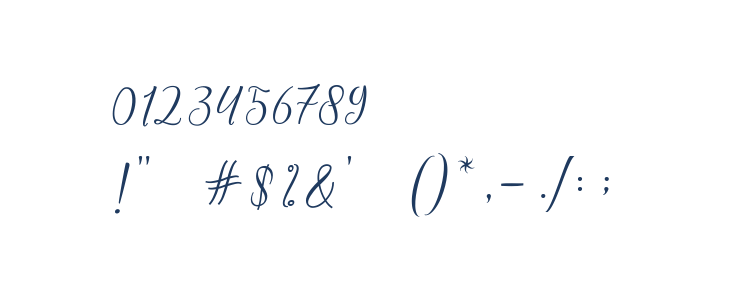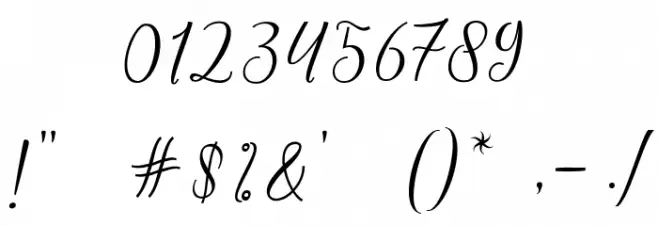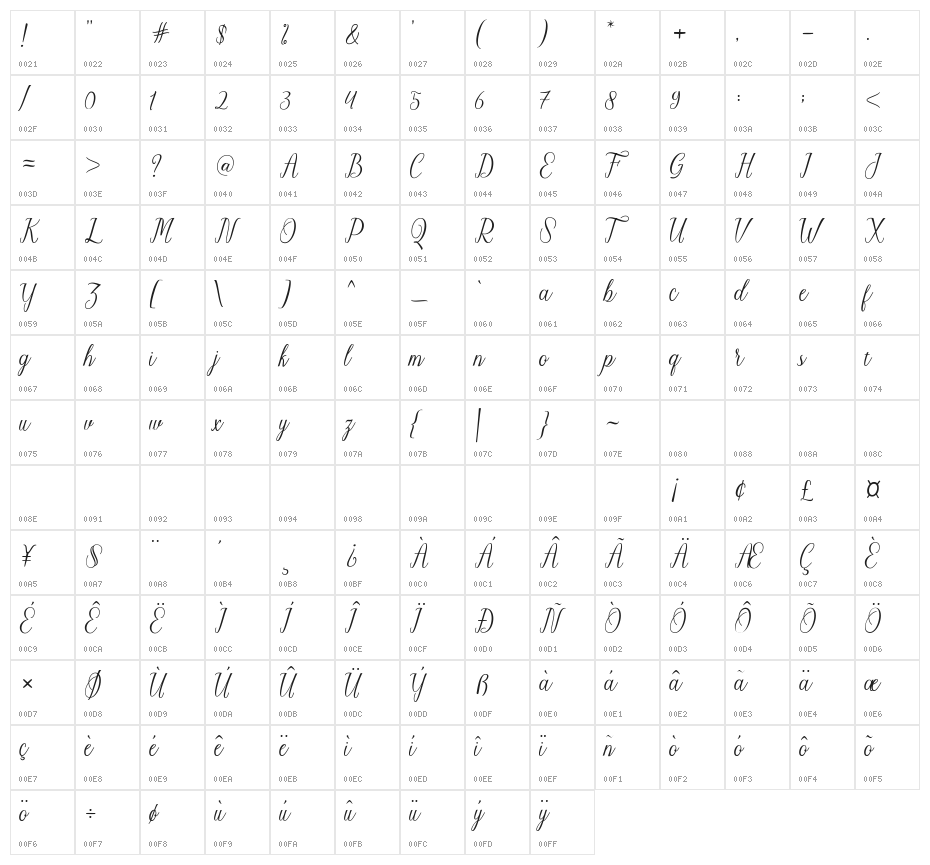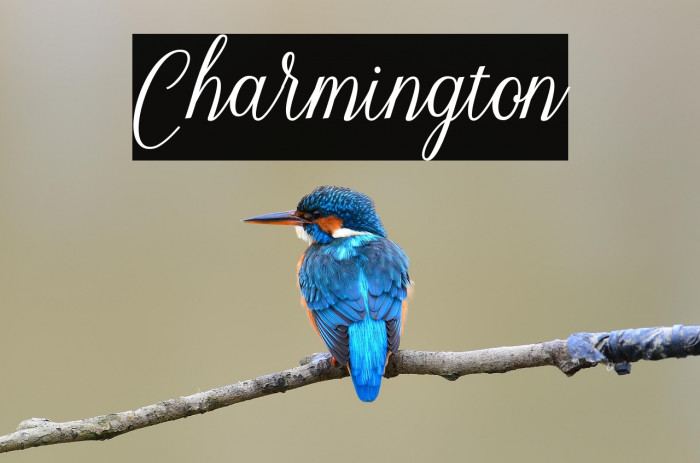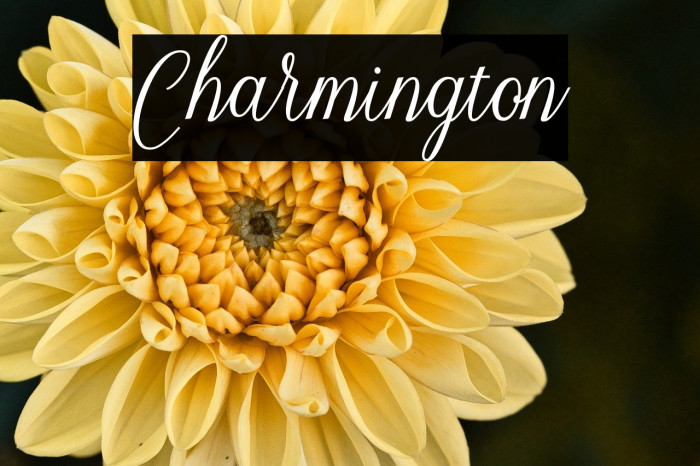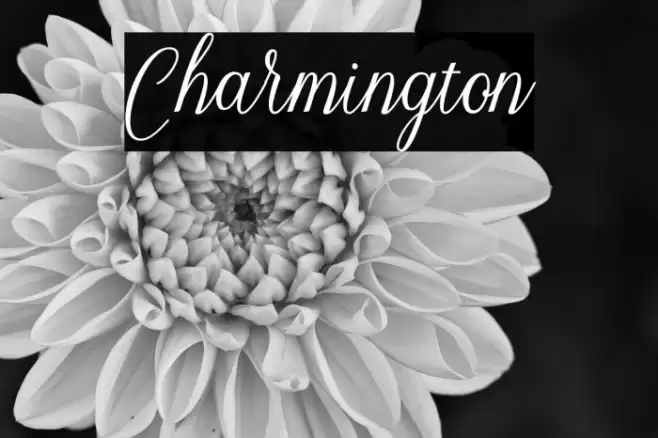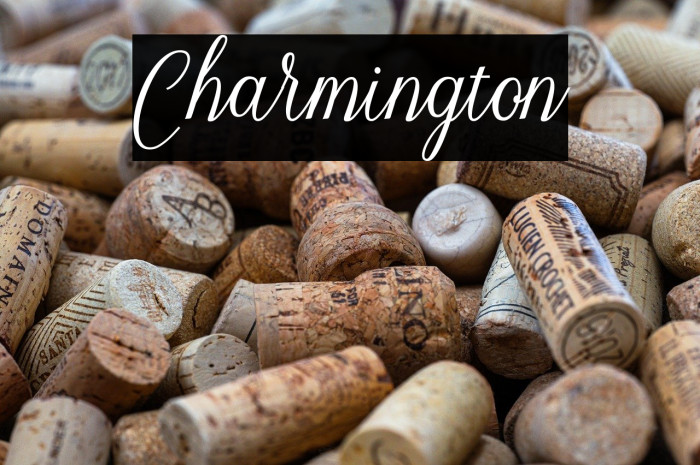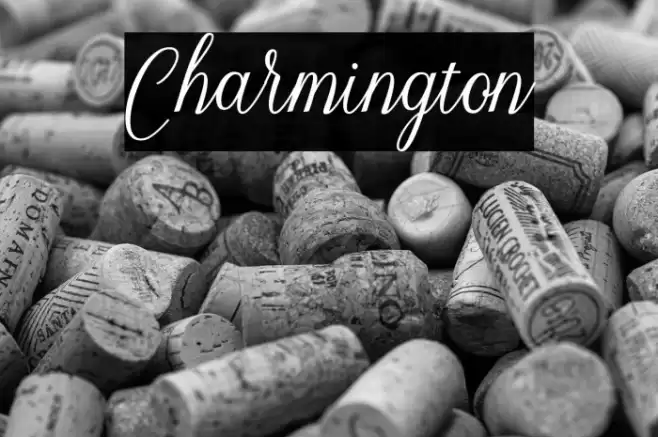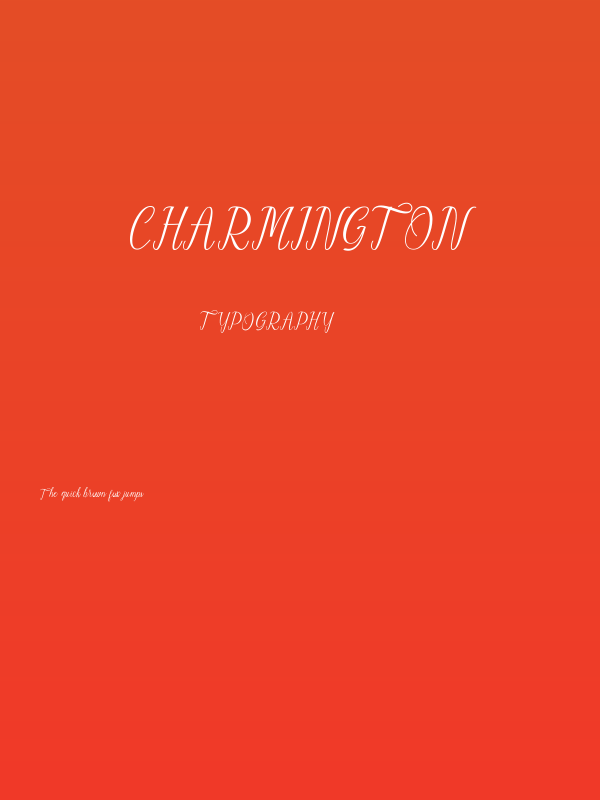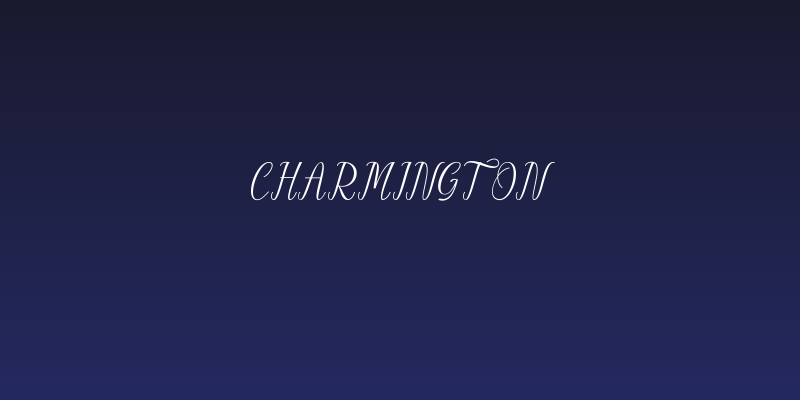
Charmington Font
Charmington Description
This elegant script font features smooth, flowing lines with a classic and sophisticated appearance. The uppercase letters are tall and graceful, with delicate curves and loops that add a touch of refinement. The lowercase letters maintain a consistent flow, enhancing readability while preserving an artistic flair. Numbers and special characters are designed with the same attention to detail, ensuring a cohesive look across all text. The font's overall style is reminiscent of traditional calligraphy, making it suitable for formal and decorative applications.